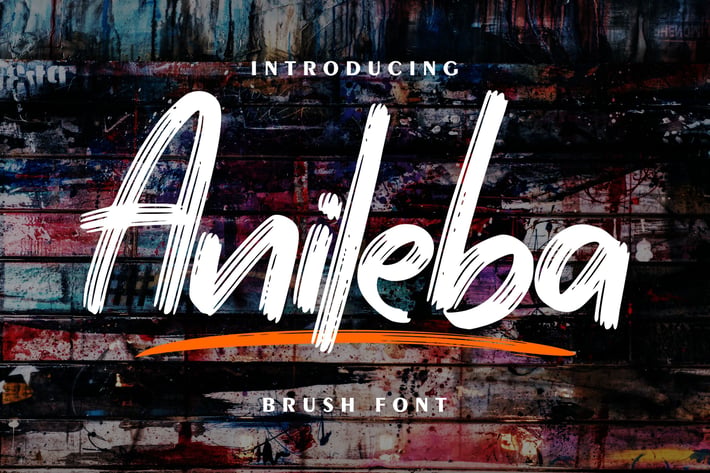
Anileba | Brush Font
Anileba | Brush Font with a calligraphy style, So beautiful on invitation like greeting cards, branding materials, business cards, quotes, posters, and more!